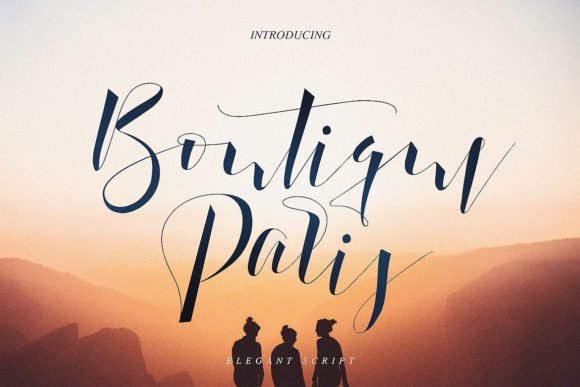
Unleashing Creativity with the Boutique Paris Font
Have you ever been stuck in a creative rut, struggling to find the perfect font to elevate your design project? We’ve all been there – pouring over font libraries, scrolling through endless options, and still, nothing seems quite right. That’s when you stumble upon a hidden gem, a font that speaks to you and transports your design to new heights. For me, that font was the Boutique Paris Font.
This modern calligraphy font is a game-changer for designers looking to add a touch of elegance and sophistication to their projects. Whether you’re working on a grunge-inspired art piece or a high-end fashion campaign, the Boutique Paris Font is the perfect addition to your toolkit. Its striking, yet refined design makes it a valuable asset for any designer looking to take their work to the next level.
Boutique Paris Font Key Features
- Font Family: Boutique Paris Font is a script font family with 6 styles: Regular, Italic, Bold, Bold Italic, Light, and Light Italic.
- Size: Each font style has a unique set of glyphs, with a total of 700+ characters, including Latin, Cyrillic, and Greek alphabets.
- Resolution: Optimized for high-resolution displays, making it perfect for use in digital media, such as web design, mobile apps, and print materials.
- Unique Characteristics: Boutique Paris Font features elegant, cursive script lines, with subtle flair and swashes, making it ideal for creating luxurious and sophisticated designs.
Boutique Paris Font Review
Overall, I’m quite fond of the Boutique Paris Font. Here’s what I like about it:
- ✨ Elegant and sophisticated design that screams “Parisian chic” – perfect for luxury brands and high-end fashion designs.
- ✨ The font’s cursive script is incredibly detailed, with beautiful flourishes and curves that make it a standout in digital and print media.
- ✨ The font comes in a range of weights, from light to bold, giving designers the flexibility to use it in various contexts.
However, there are a few limitations I’ve encountered:
- ⚠️ The font can be a bit too ornate for certain designs, making it difficult to read at small sizes or in low-light conditions.
- ⚠️ Some of the characters, particularly the lowercase “e” and “a”, can be a bit tricky to distinguish from one another.
Overall, I think the Boutique Paris Font is a great addition to any designer’s toolkit. While it may not be perfect for every project, its unique charm and sophistication make it a valuable resource for designers looking to create high-end, luxurious designs.
Tips for Getting the Most Out of Boutique Paris Font
To get the most out of Boutique Paris Font, consider the following tips:
– Use it for elegant and sophisticated designs.
– Pair it with bold fonts for contrast.
– Experiment with different font sizes and styles to achieve the desired effect.
Boutique Paris Font is commonly used for:
– Fashion and beauty branding.
– Luxury product packaging.
– High-end event invitations.
Great Vibes is a modern script font perfect for adding a touch of elegance and sophistication to your designs. It’s ideal for use in branding, invitations, and other creative projects where a unique and eye-catching font is needed. Great Vibes has a more relaxed and casual feel compared to Boutique Paris Font, making it suitable for a wider range of applications.
Carolyna Pro is a high-end script font that exudes luxury and refinement. It’s perfect for use in high-end branding, packaging, and other design projects where a sophisticated and elegant font is required. Carolyna Pro has a more formal and polished feel compared to Boutique Paris Font, making it suitable for projects that demand a level of sophistication and glamour.
Q: What is the recommended font size for using Boutique Paris Font?
The recommended font size for using Boutique Paris Font is between 12pt and 24pt. This range provides optimal readability and visual appeal for most design applications. However, feel free to experiment with different font sizes to achieve the desired look and feel for your project.